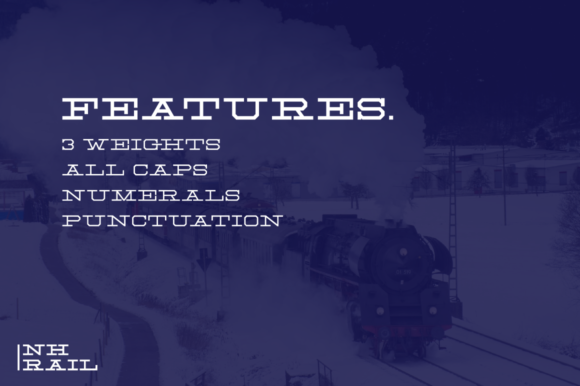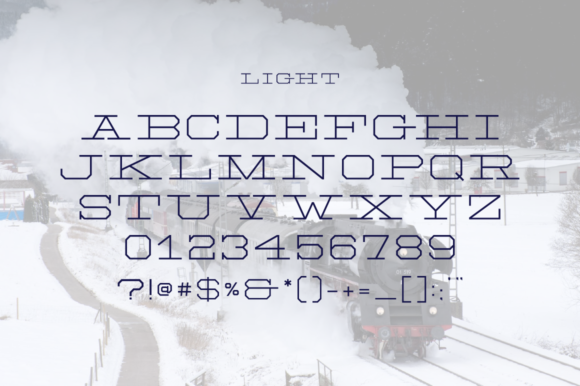
NH Rail: A Bold and Timeless Extra Wide Slab Serif Font
NH Rail is a striking extra wide slab serif font that draws inspiration from the iconic logo of the New Haven Railroad (1872-1968), originally created by renowned designer Herbert Matter. This typeface offers designers a powerful tool for creating impactful typography with a blend of historical charm and modern boldness.
Key Features of NH Rail
- Extra Wide Design: Features an expansive, attention-grabbing width
- Bold Slab Serifs: Incorporates long, prominent slab serifs for a strong visual impact
- Modern Block Styling: Combines historical inspiration with contemporary design elements
- Timeless Aesthetic: Created to provide a lasting, impactful look for various design applications
- Versatile Application: Suitable for adding a punch to logos, headlines, and other design projects
Design Inspiration
NH Rail’s design is rooted in the rich history of American railroad branding, specifically drawing from the New Haven Railroad logo. This inspiration infuses the font with a sense of heritage and authority, making it particularly well-suited for projects that aim to convey strength and tradition[2].
Ideal Uses for NH Rail
NH Rail’s unique characteristics make it particularly well-suited for:
- Impactful logo designs
- Bold headlines and titles
- Branding projects requiring a strong, memorable typeface
- Poster and advertisement layouts
- Signage and environmental graphics
When incorporating NH Rail into your designs, consider the following tips:
- Use for short phrases or single words to maximize its bold impact
- Pair with simpler, narrower fonts for body text to create contrast
- Consider using it in projects where you want to evoke a sense of heritage or industrial strength
- Experiment with different sizes to create hierarchy while maintaining readability
NH Rail is an excellent choice for designers looking to add a bold, timeless slab serif to their typographic toolkit. Its extra wide design and historical inspiration make it stand out in the world of typography. Whether you’re working on logo designs, creating eye-catching poster designs, or developing branding for projects that require a strong visual presence, NH Rail offers the perfect blend of impact and heritage.
Explore how NH Rail can bring a bold, timeless edge to your design projects. From striking logos to powerful headlines, this font provides the tools to create impactful and memorable typography that stands out with its unique blend of historical charm and modern boldness.